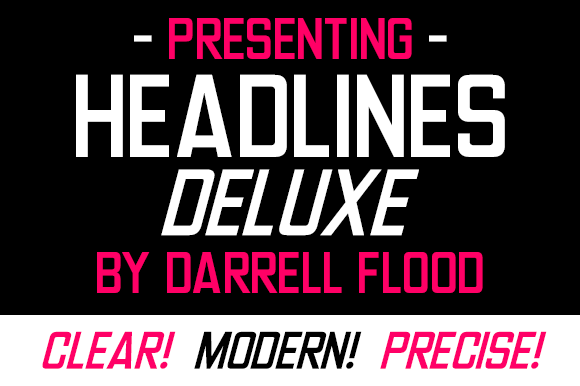
Introducing Headlines Deluxe Font: Elevate Your Designs with Bold Simplicity
In the world of design, fonts play a crucial role in conveying messages, evoking emotions, and creating visual identities. Among the myriad of fonts available, Headlines Deluxe Font stands out for its bold and simple lettered sans serif style. This versatile font is designed to make your creative projects stand out, offering a fresh and modern aesthetic that can be applied to a wide range of designs.
Key Features of Headlines Deluxe Font
- Bold and Simple Design: The sans serif design of Headlines Deluxe ensures clarity and readability, making it perfect for headlines, titles, and short texts.
- Versatility: Its simple yet bold style allows it to be matched with an incredibly large set of projects, from modern digital media to traditional print materials.
- Enhanced Readability: The clean lines and even spacing of the font ensure that your messages are conveyed clearly and effectively.
Applications of Headlines Deluxe Font
Whether you’re a professional designer or a passionate crafter, Headlines Deluxe Font can add a touch of modernity and sophistication to your projects. Here are some ideal applications:
- Digital Media: Use it for blog titles, social media posts, and website headings to grab attention and make a lasting impression.
- Print Materials: It’s perfect for brochures, posters, flyers, and business cards, adding a professional and contemporary look.
- Branding and Logo Design: The bold nature of Headlines Deluxe makes it an excellent choice for logos and brand names, ensuring they stand out.
- Crafting and DIY Projects: Add a personalized and stylish touch to your handmade crafts, such as journals, planners, and decorative items.
Tips for Using Headlines Deluxe Font Effectively
To maximize the impact of Headlines Deluxe Font, consider the following tips:
- Pair with Complementary Fonts: Combine Headlines Deluxe with simpler fonts for body text to create visual hierarchy and enhance readability.
- Experiment with Colors: While the font’s boldness stands out on its own, experimenting with different colors can further elevate your design.
- Adjust Size and Spacing: Play with the font size and line spacing to find the perfect balance for your specific project.
Why Choose Headlines Deluxe Font?
In a sea of fonts, Headlines Deluxe Font offers a unique combination of boldness, simplicity, and versatility. Here are reasons why it should be your go-to font:
- Time-Saving: Its ready-to-use design saves you time in creating custom fonts from scratch.
- Professional Look: Achieve a professional and polished look without needing extensive design experience.
- Wide Applicability: From digital to print, and from professional projects to personal crafting, Headlines Deluxe adapts to any context.
Headlines Deluxe Font is more than just a typeface; it’s a design solution that brings bold simplicity to your creative projects. Its versatility, readability, and modern aesthetic make it an indispensable tool for designers and crafters alike. By incorporating Headlines Deluxe into your designs, you’re not just choosing a font; you’re elevating your project’s visual impact and ensuring it stands out in a crowded creative landscape.